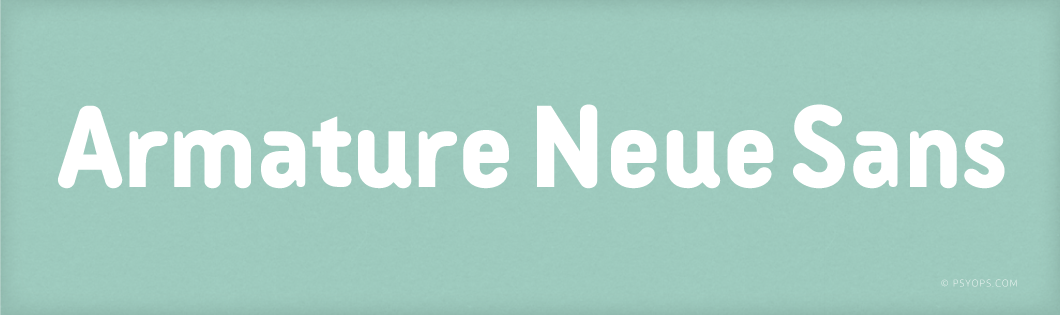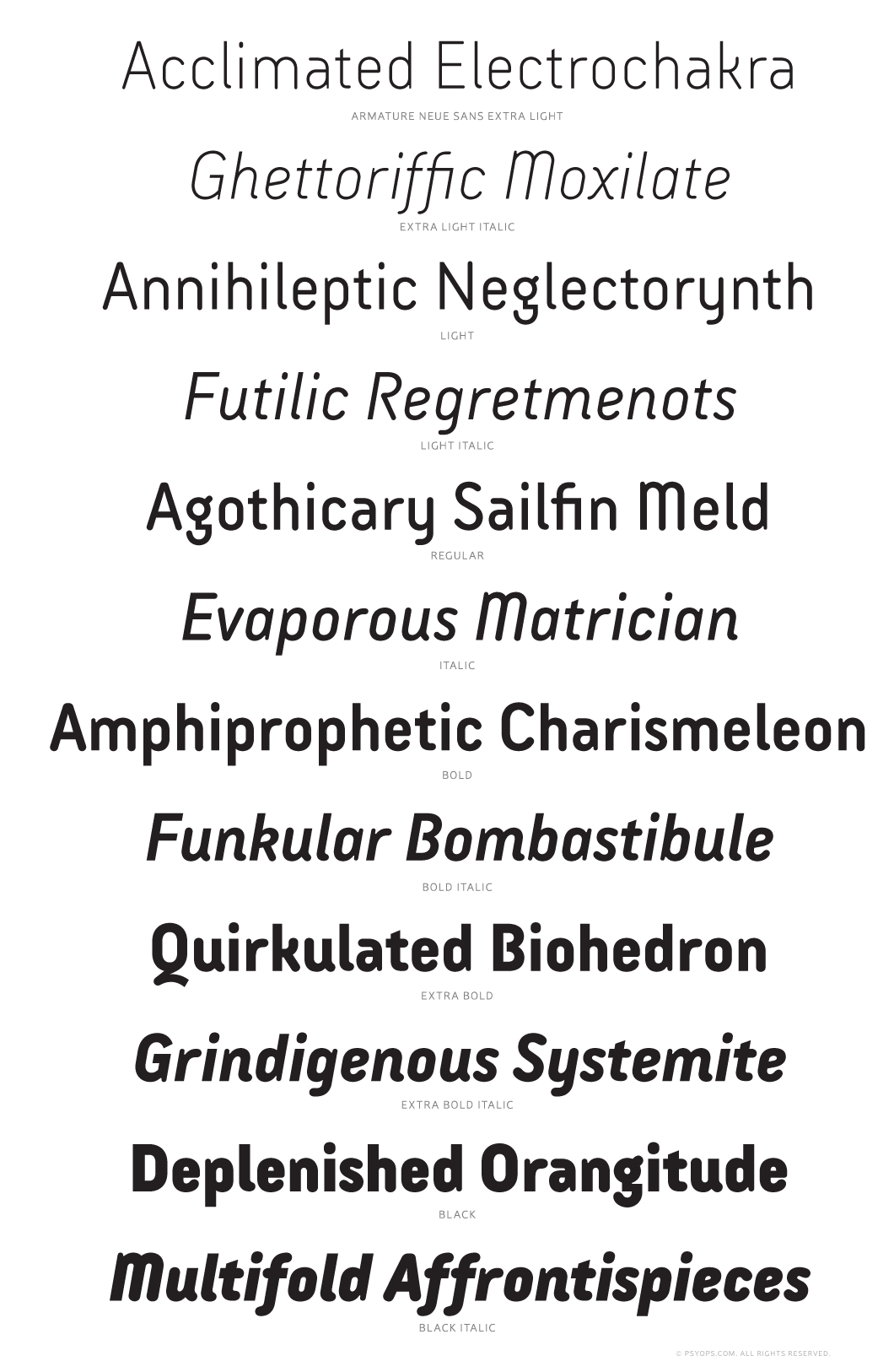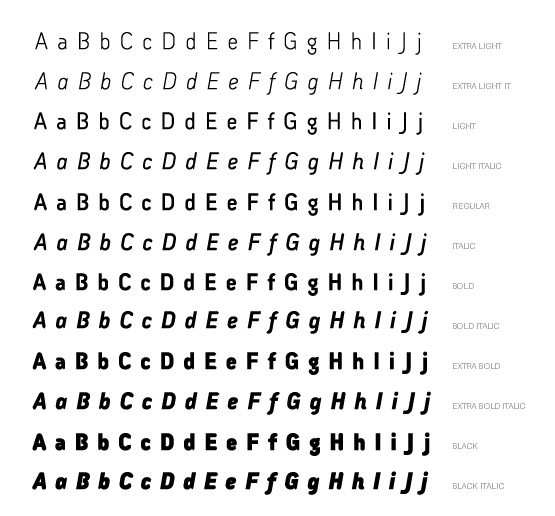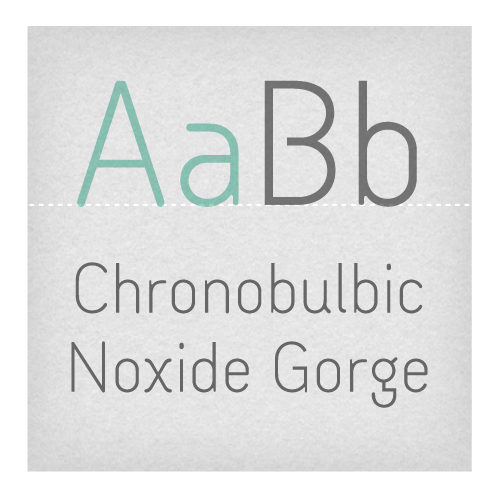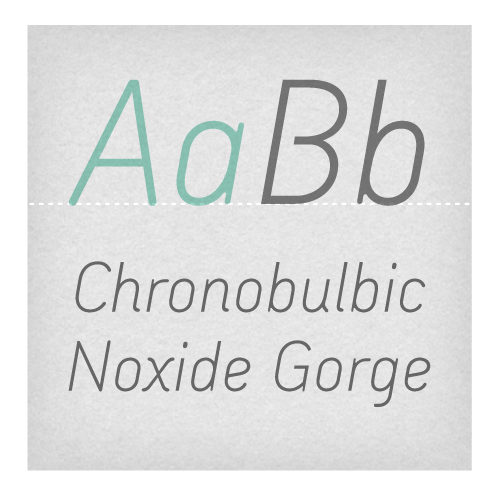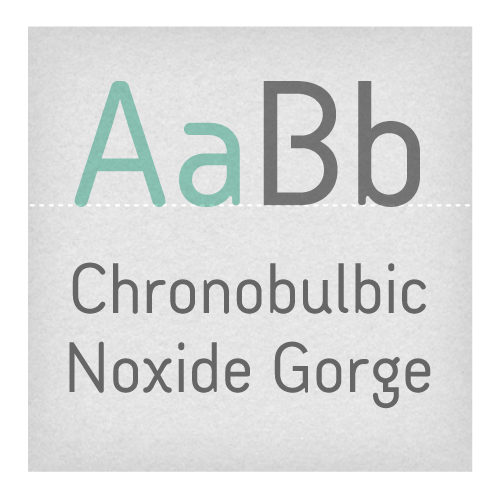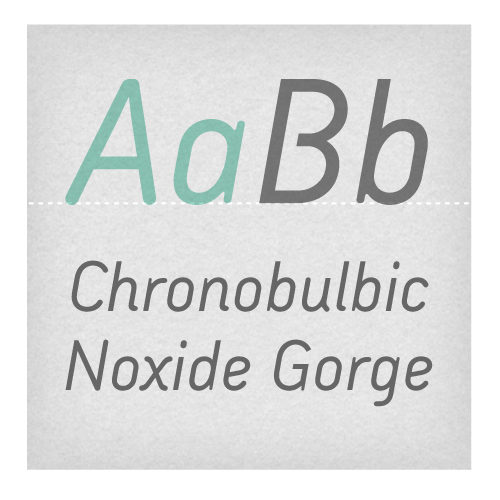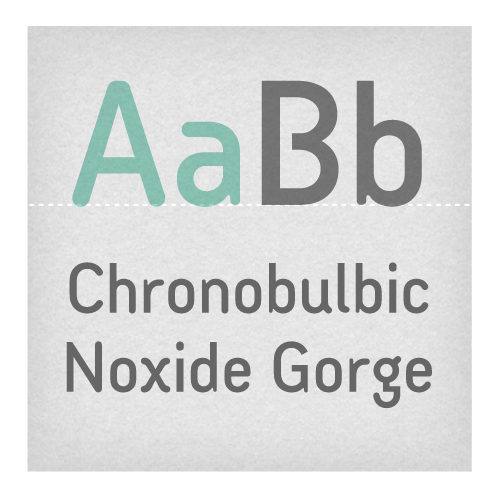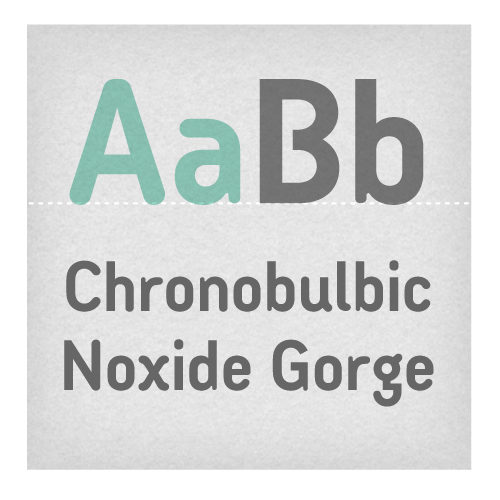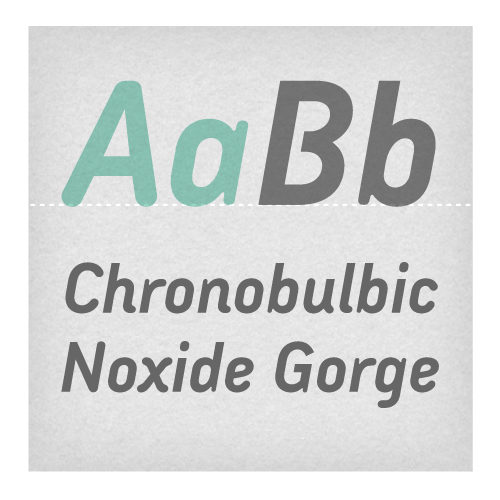
Armature Neue Sans
Armature Neue Sans is an extension of the original Armature Neue family released in 2010. Like Armature Neue, Armature Neue Sans consists of six weights with accompanying italics. Armature is one result of my interest in typefaces that are constructed, rather than drawn. Although it is basically a monoline design, there are subtle details throughout that compensate for a monoline’s evenness.
As with all fontBoy fonts, there are dingbats hidden away in the dark recesses of the keyboard. When I first started designing this face in 1992, I called it Dino – I thought I would name all my fonts after famous pets, so the dingbats for Armature are dinosaurs. To access the alternate characters (closed counter B and R, and others) use Stylistic Set 1 or the glyphs palette in your OpenType-enabled application.
The Armature Neue Sans fonts contain Western and Eastern European characters, ligatures, stylistic alternates, and more.